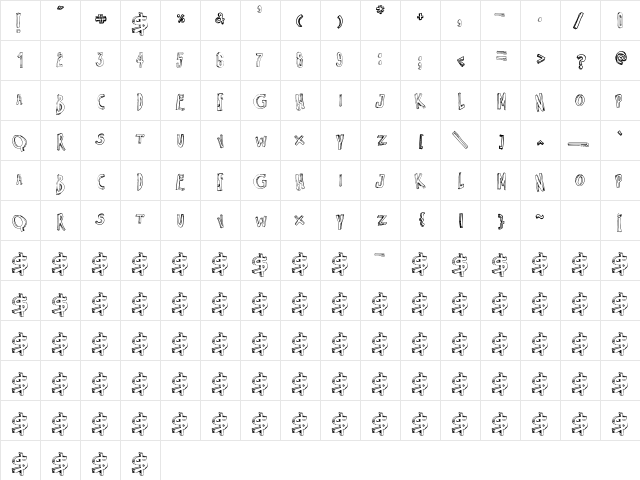
Education is a Way Regular
| Foundry | Galdino Otten |
| Designer | Galdino Otten |
Design Context for Education is a Way Typeface
Education is a Way is a composed and adaptable typeface that performs quietly and consistently across a wide range of design contexts.